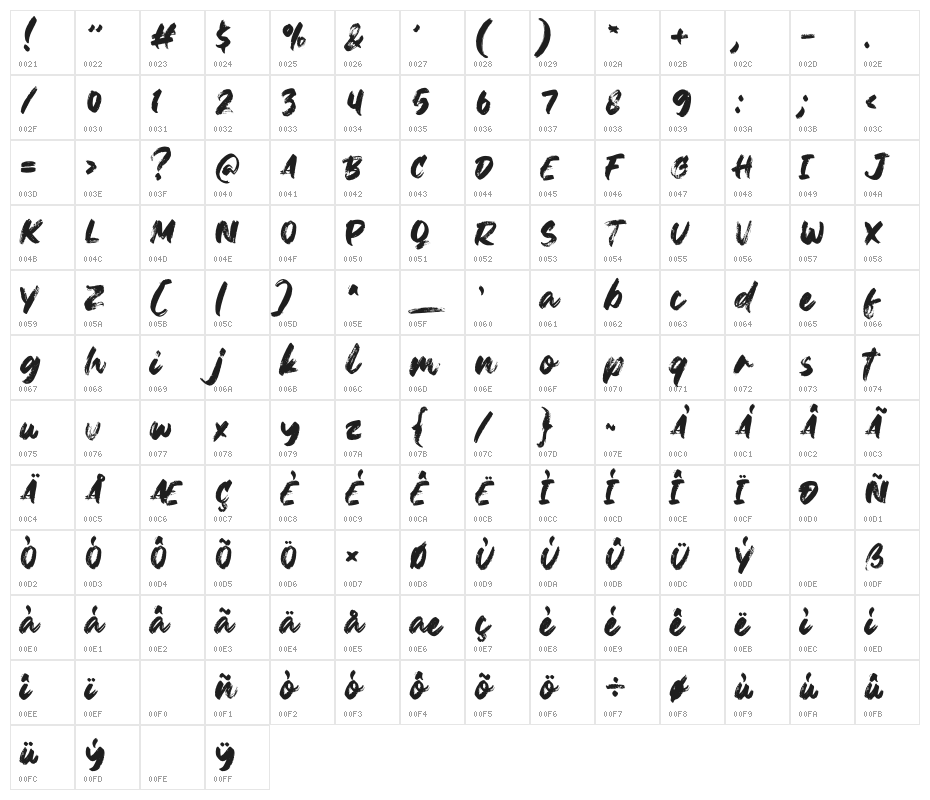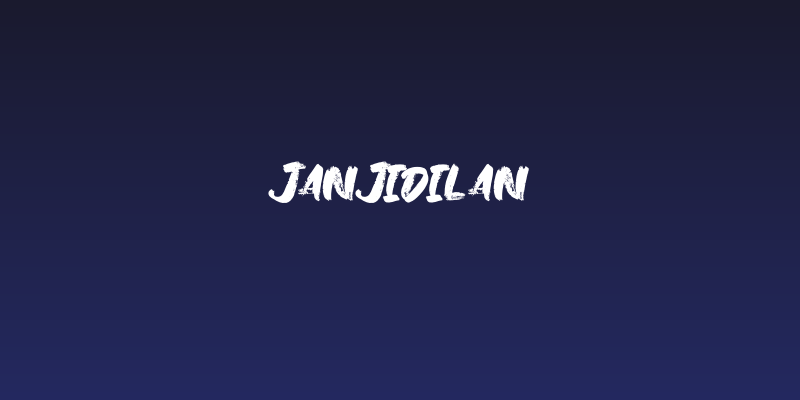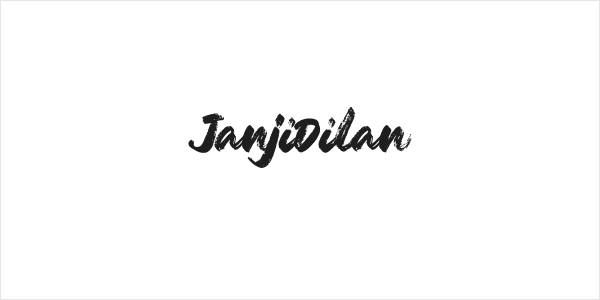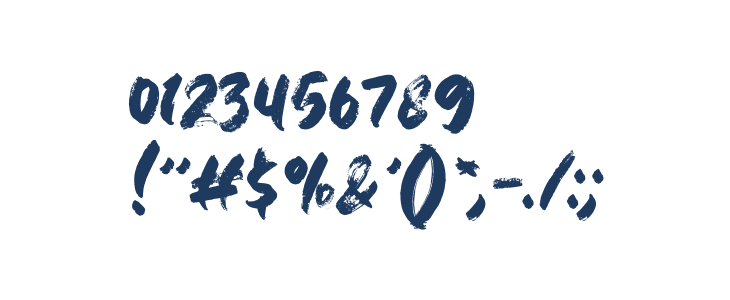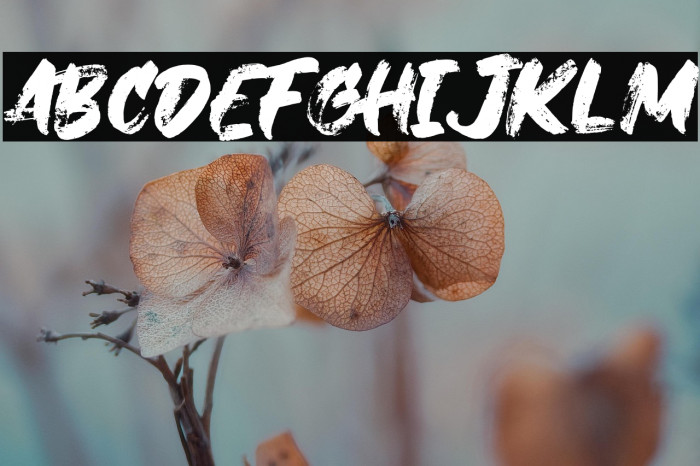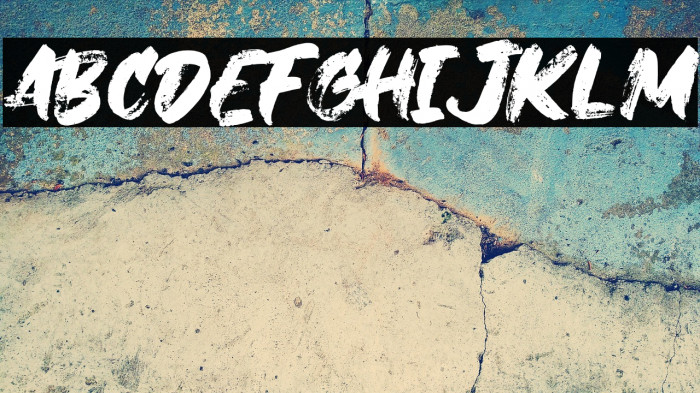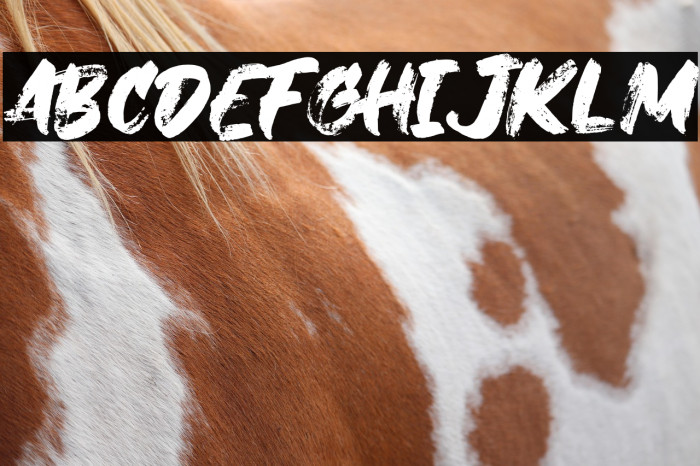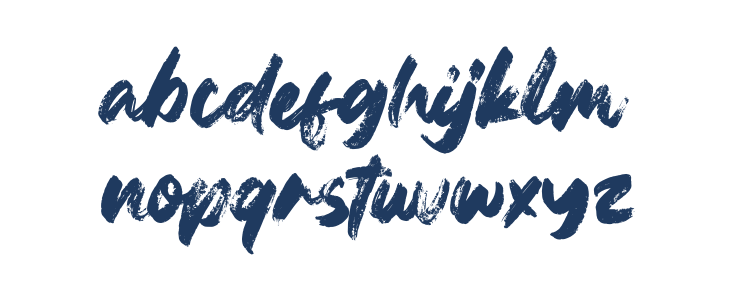
JanjiDilan Font
JanjiDilan Description
This font exhibits a bold, expressive brush style with a hand-painted appearance. The strokes are thick and textured, giving it a dynamic and energetic feel. The characters are slightly irregular, adding to the handcrafted aesthetic. This font is highly legible despite its artistic flair, making it suitable for impactful designs. The uppercase and lowercase letters maintain a consistent style, while the numbers and special characters complement the overall look. The texture and weight of the strokes suggest a sense of movement and creativity, ideal for projects that require a strong visual impact.
JANJIDILAN UPPERCASE
JANJIDILAN LOWERCASE
JANJIDILAN OTHER CHARS
| Proposed Projects | Ideal for posters, branding, album covers, and creative advertising campaigns. |